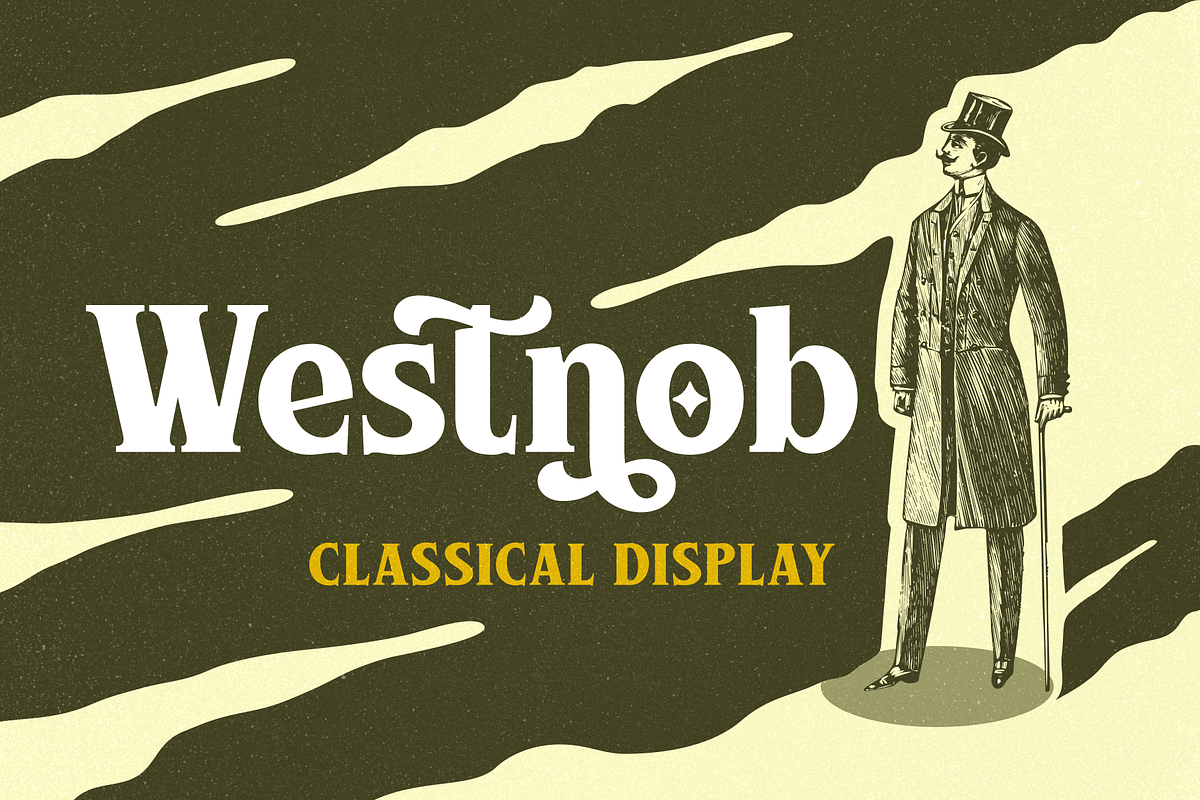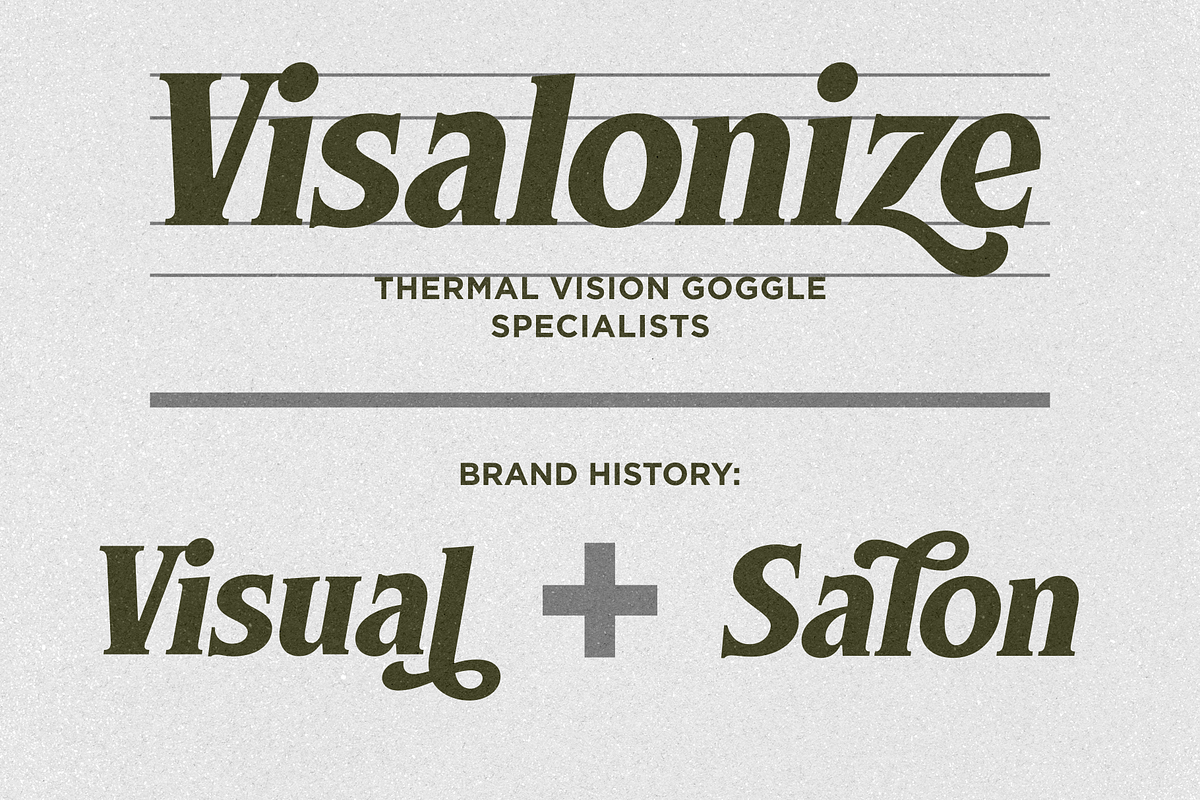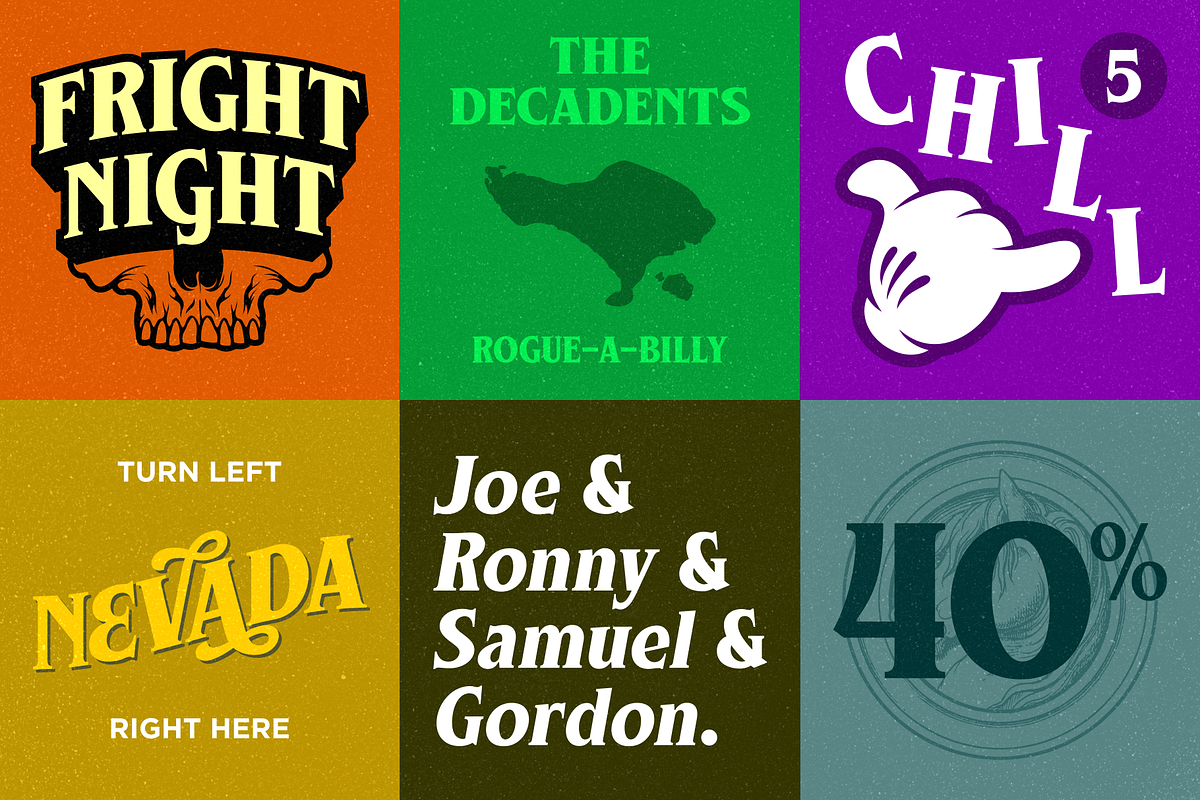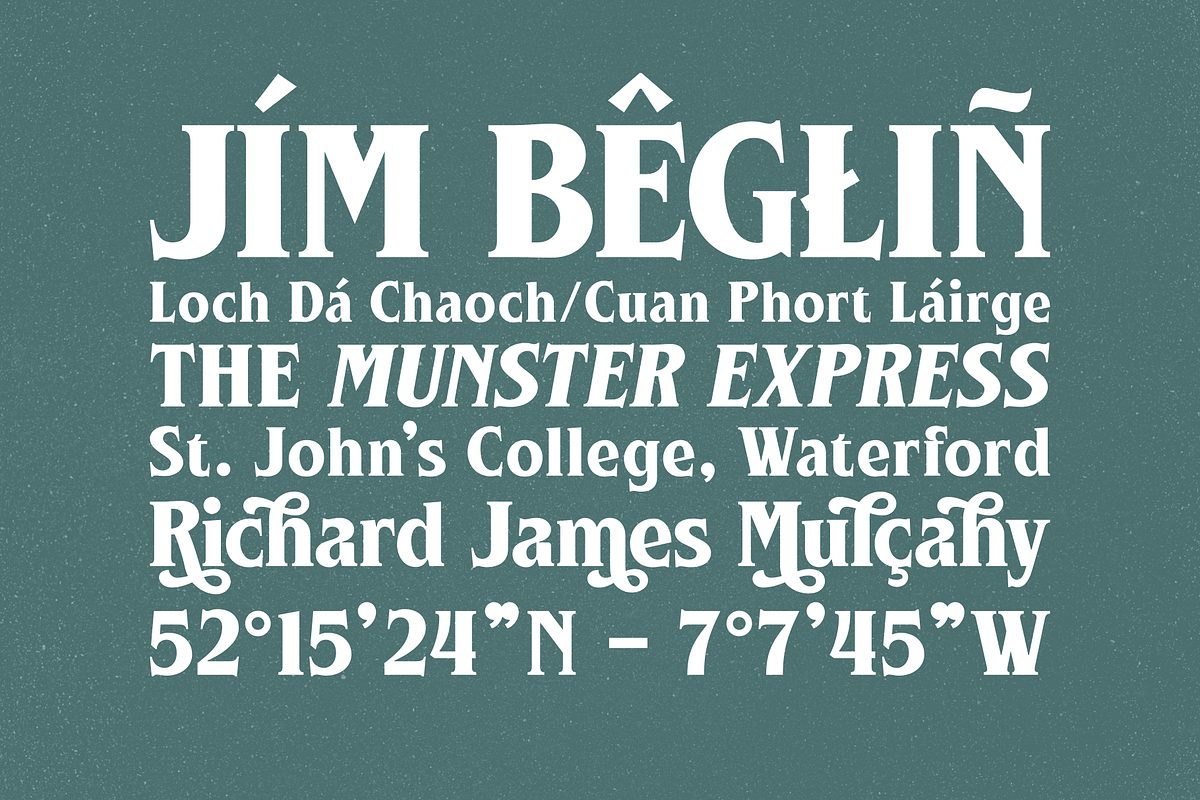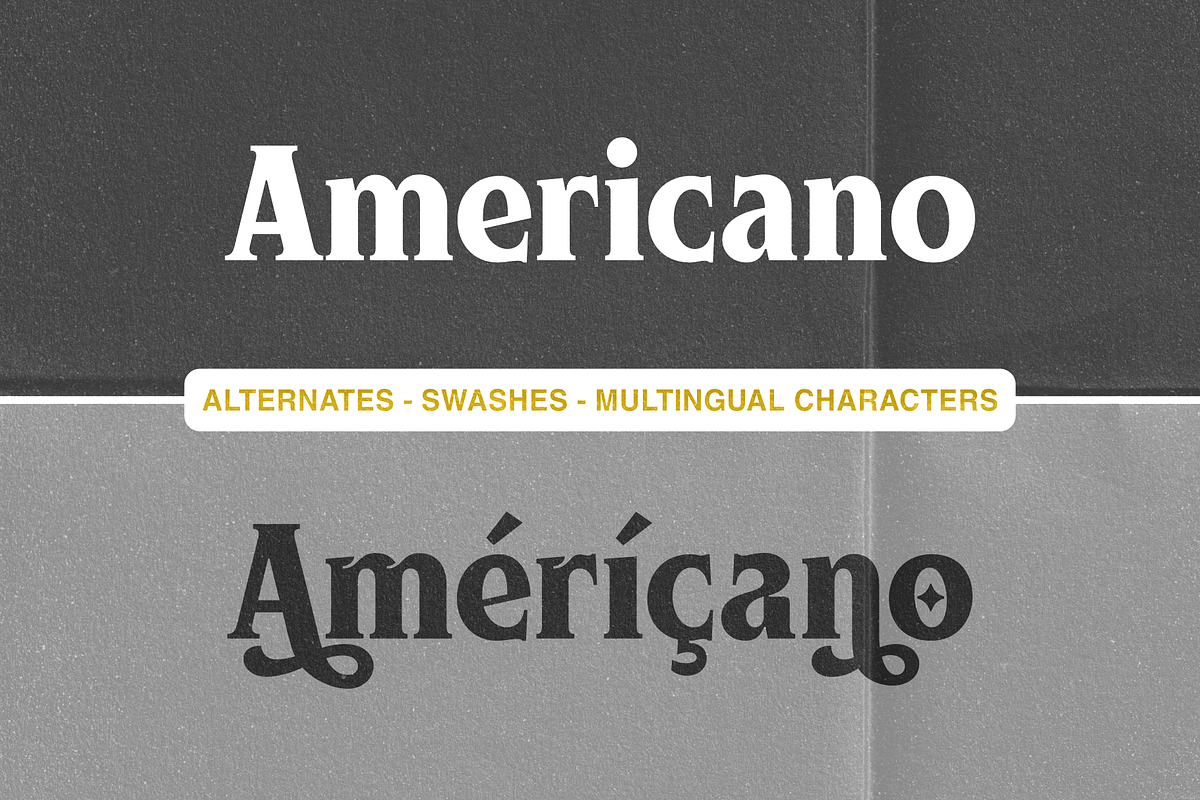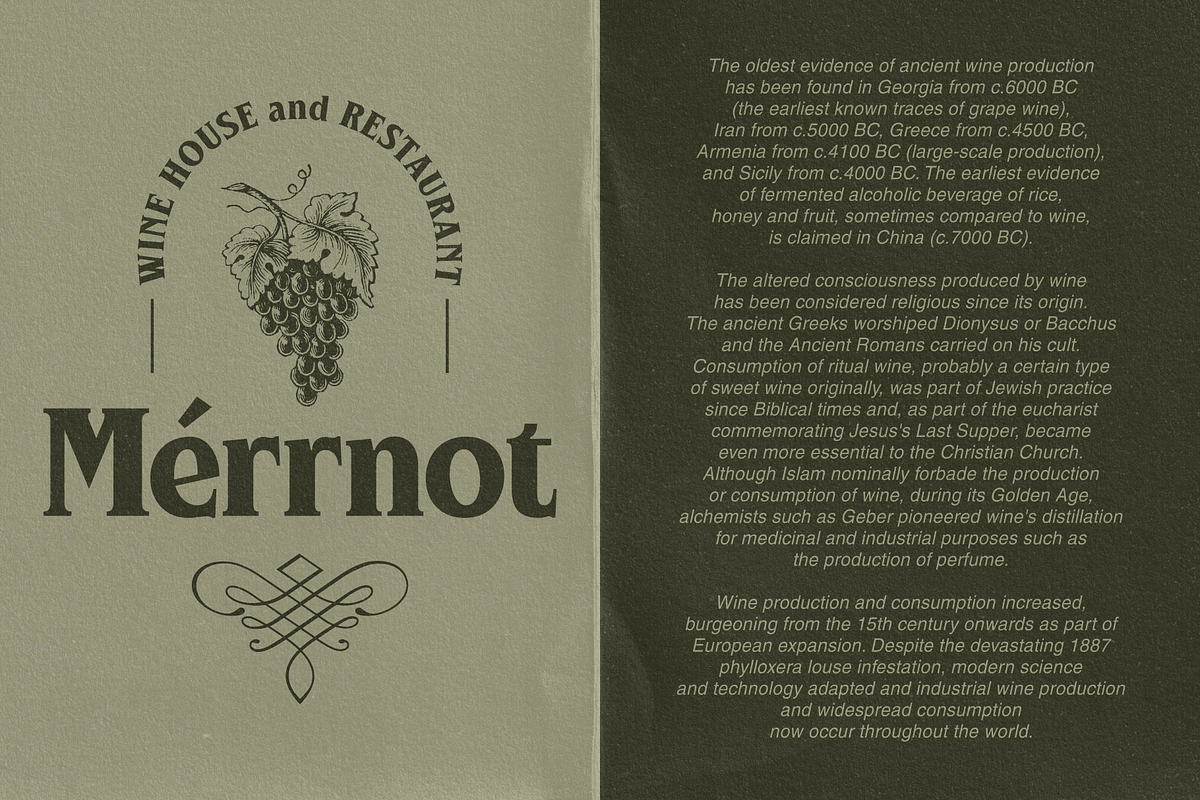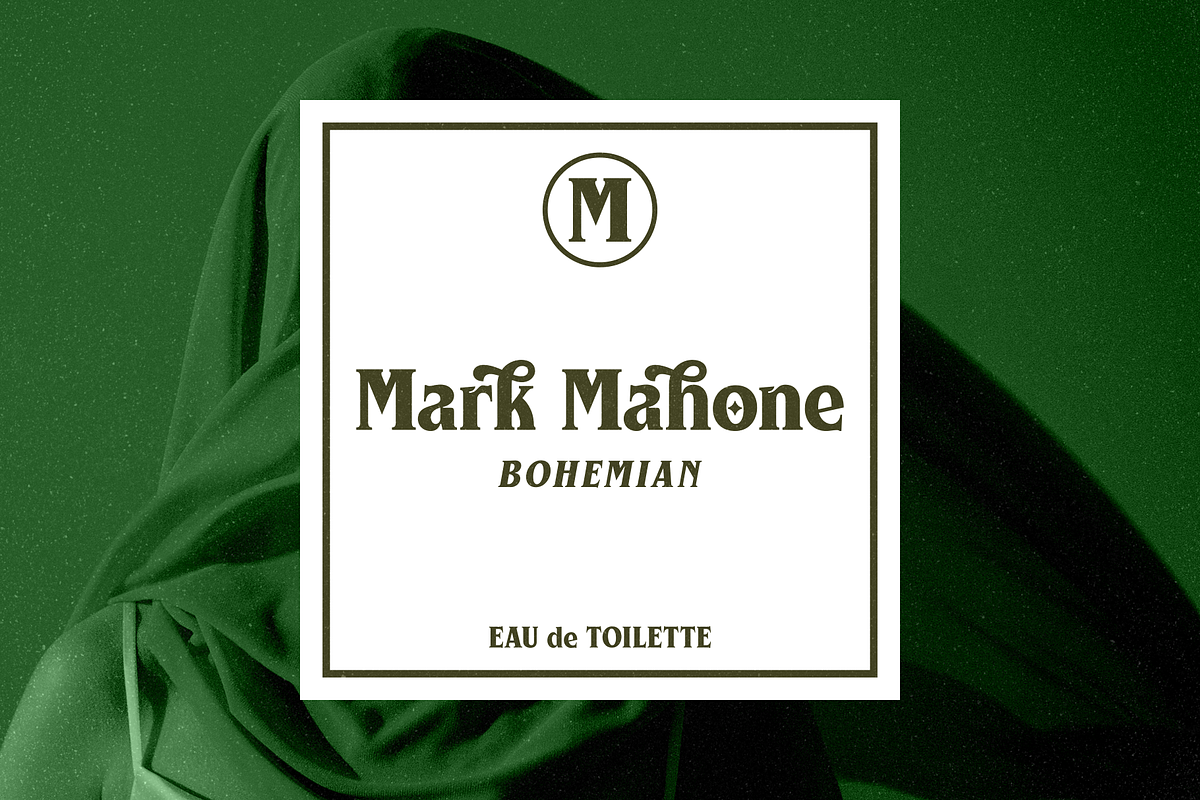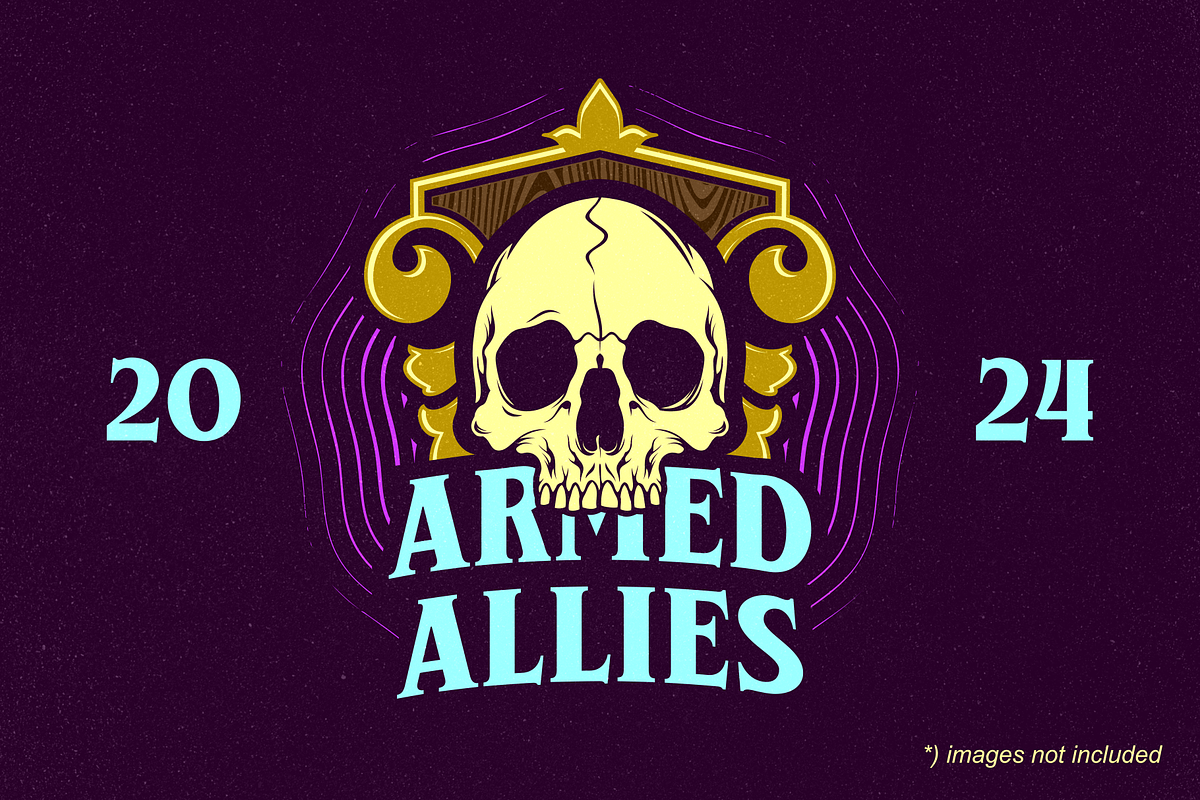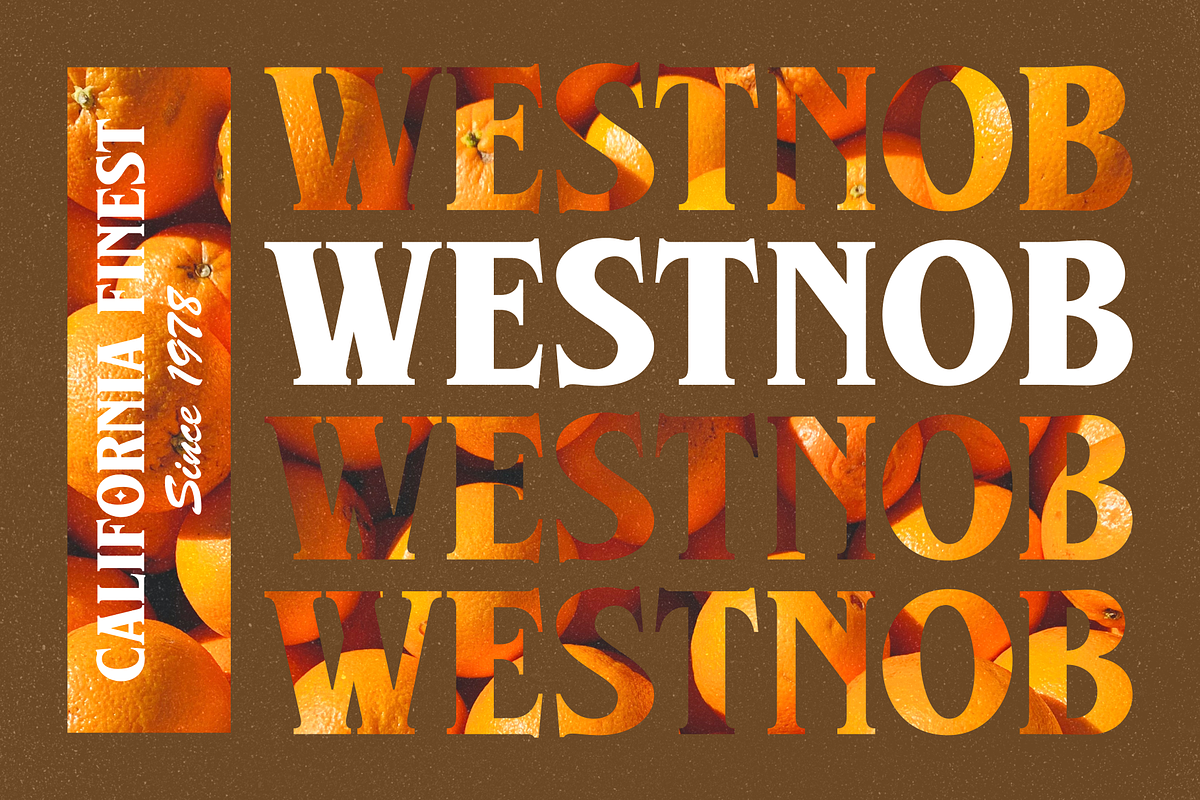
Westnob - Classic Display Serif
Westnob, a display serif font that inspired by the vintage/classic letterforms. Mouse-crafted with high attention to details; clean lines, sharp edges and tempting curves. Packed with slanted/italic version, multilingual characters, lots of alternates and ligatures also.
Suits best for headline, sport/e-sports logo, book/movie titles, packaging/label designs, quote and poster designs etc.